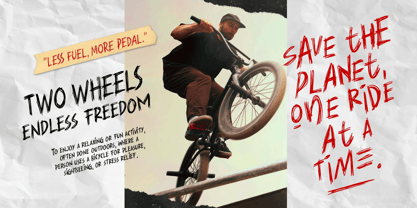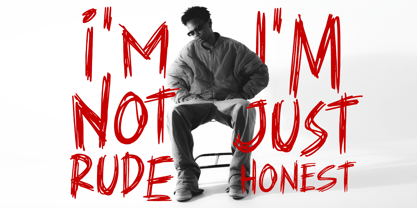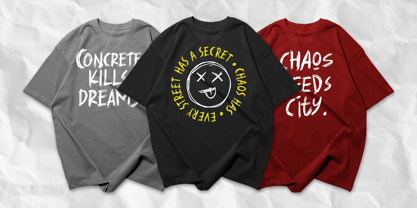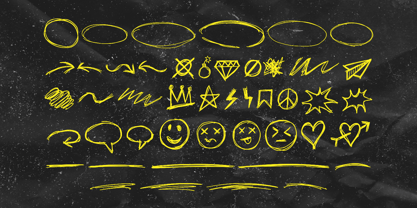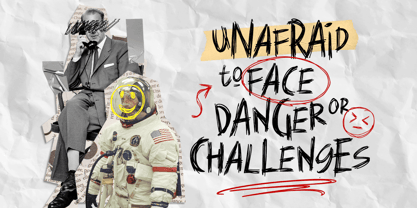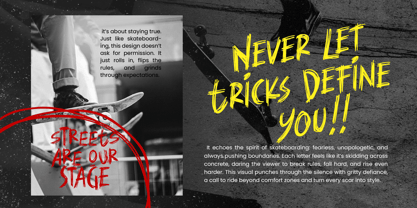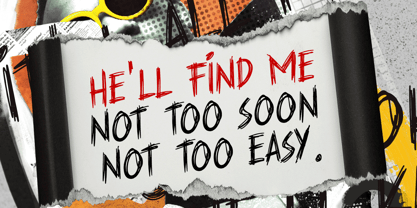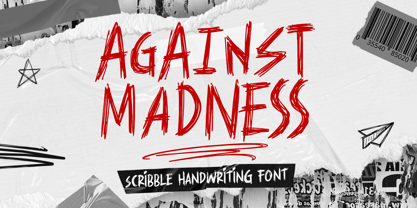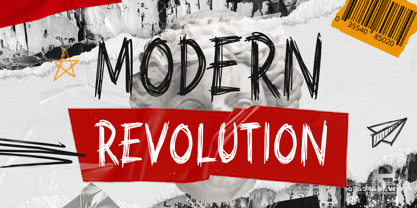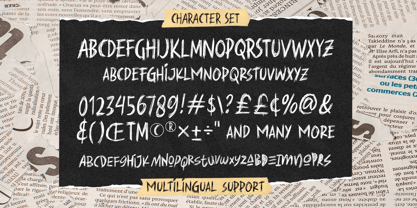
Against Madness
The Against Madness Font Family was designed by Ahmad Ramzi Fahruddin and published by Arterfak Project. Against Madness contains 2 styles and family package options. More about this family
Bring raw emotion and scribbled energy into your work with Against Madness — a rebellious font that speaks louder than words. With expressive, hand-drawn strokes, this typeface channels pure feeling into every letter, perfect for contemporary and minimalist designs that demand to stand out.
But there’s more — Against Madness comes with special characters and a unique set of dingbats to amplify your creative voice. Whether you’re crafting bold posters, edgy branding, or eye-catching social media graphics, this font adds a dynamic and artistic flair that breaks the mold.
• Against Madness – Regular
• Against Madness – Dingbats
• All-Caps characters set
• Numbers & symbols
• Punctuation
• Multilingual support
• Stylistic alternates